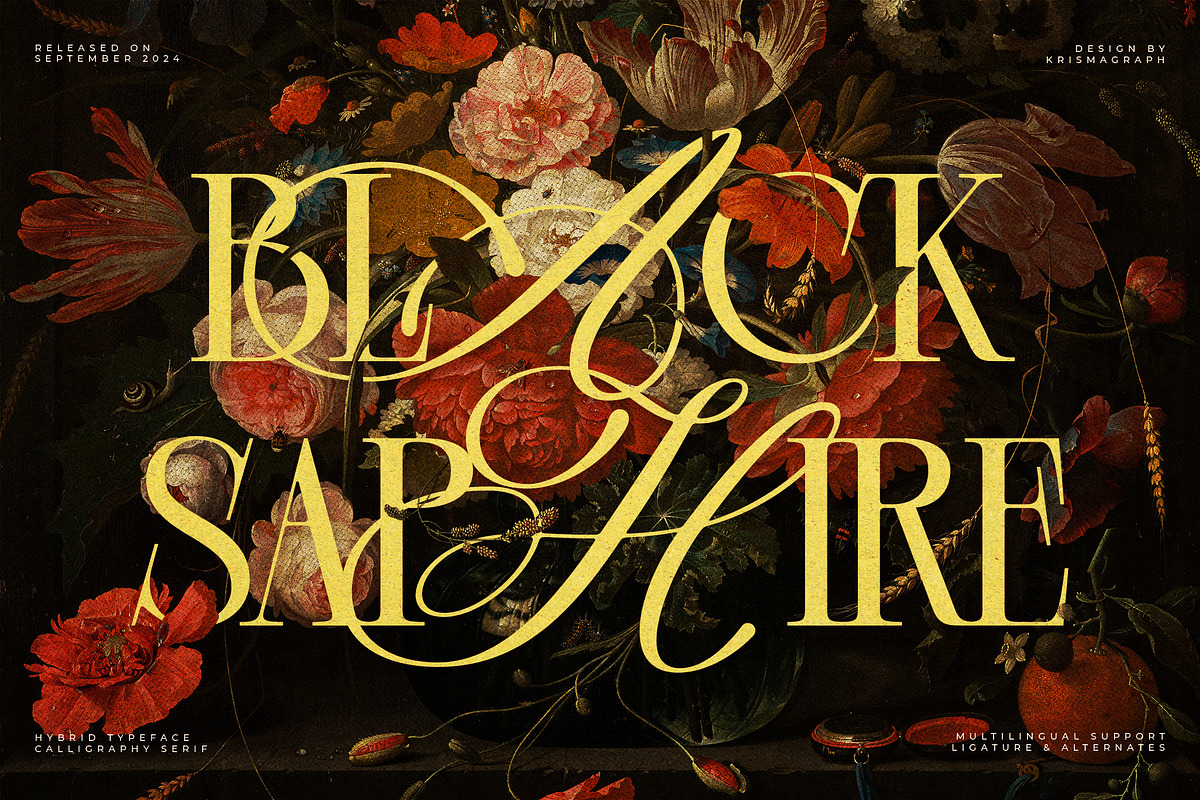
Step into a world of refined beauty and emotional depth with Black Saphire—a breathtaking fusion of calligraphic grace and classic serif strength. This isn’t just a font; it’s a portal to a bygone era of craftsmanship, where every stroke tells a story of elegance, intention, and artistic mastery. Whether you’re building a brand identity, designing a high-end editorial layout, or creating a social media post that stops the scroll, Black Saphire delivers an instant sense of polish, heritage, and unmistakable sophistication.
The Art of Fusion: Calligraphy Meets Classic Serif
Black Saphire’s magic lies in its deliberate and seamless blend of two powerful typographic traditions. On one hand, it inherits the fluid, expressive stroke dynamics of hand-drawn calligraphy—slender lines, elegant flourishes, and a sense of movement that feels alive on the page. On the other, it grounds itself in the structural strength and timeless dignity of a well-crafted serif, providing a firm foundation for readability and authority. The result? A typeface that feels both deeply personal and impeccably professional—one that commands attention without shouting, and whispers refinement with every character.
This duality makes Black Saphire uniquely suited for projects that demand emotional resonance. It elevates a simple headline into a narrative, transforms a brand name into a promise, and gives a social media caption the weight of an invitation. It’s the font choice for creators who believe design should feel meaningful, not just seen.
Unlock the Full Potential: Advanced OpenType Ligatures
To truly experience the magic of Black Saphire, you must engage with its full expressive power. The font features a rich suite of custom-built OpenType ligatures—stylish, connected letterforms that create fluid, handcrafted connections between characters. These aren’t mere stylistic options; they’re essential to the font’s artistic identity, transforming awkward pairings into seamless visual poetry.
For example, the ligature between ‘f’ and ‘i’ might flow into a single, elegant swish, while ‘t’ and ‘h’ could merge into a delicate, looping flourish. These details elevate your typography from good to extraordinary, mimicking the natural flow of a skilled pen or brush.
Diverse Applications for a Polished, Professional Finish
Black Saphire’s versatility is its superpower. It thrives across a vast range of creative domains:
- Brand Identity & Logos: Create memorable logos that convey luxury, heritage, and exclusivity. Its unique blend of elegance and strength is perfect for fashion, beauty, art galleries, and premium services.
- Editorial & Publishing: Use Black Saphire for cover titles, chapter headings, and quote blocks in magazines, journals, and books. It adds an air of sophistication and invites the reader into a curated experience.
- Social Media & Marketing Campaigns: Craft eye-catching posts, stories, and banners. The font’s visual richness ensures your content stands out in a crowded feed, making your message feel premium and trustworthy.
- Events & Invitations: Perfect for weddings, galas, and special events. It conveys the grandeur and formality of a memorable occasion with a touch of romantic nostalgia.
Embrace the Legacy, Design the Future
Black Saphire isn’t just a tool for designing text; it’s a partner in crafting experiences. It brings a depth of character to your work, connecting viewers to the emotion and intention behind the design. In a world saturated with generic fonts, choosing Black Saphire signals a commitment to quality, artistry, and timeless value.